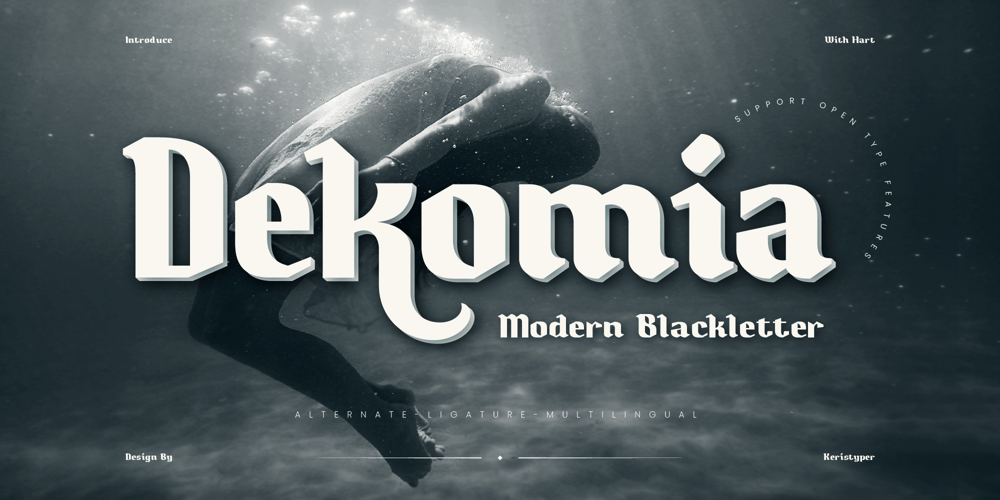
Dekomia Font Family was designed by Tezar Tantular and published by Keristyper Studio. Dekomia contains 1 styles and family package options. Dekomia is a modern blackletter font that combines the traditional style of Gothic calligraphy with contemporary design elements. Its bold and sharp letterforms give it a strong and edgy appearance, making it perfect for branding, headlines, logos, and more.Featured: Standard Uppercase & Lowercase Numeral & Punctuation Multilingual : ä ö ü Ä Ö Ü ß ¿ ¡ Alternate & Ligature PUA encoded We recommend programs that support the Open Type feature and the Glyphs panel such as Adobe applications or Corel Draw, so you can use all the variations of the glyphs.Hope you enjoy our fonts!